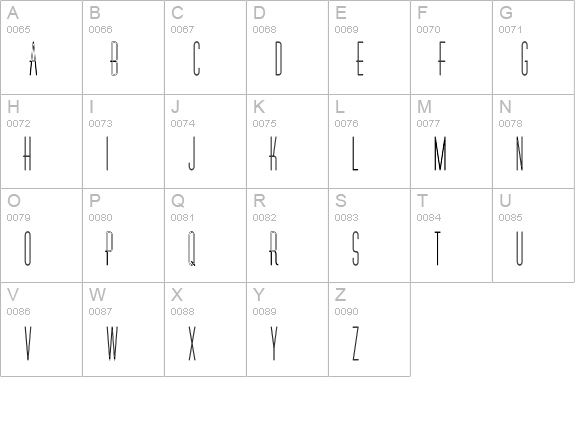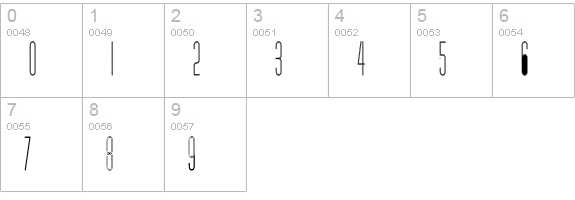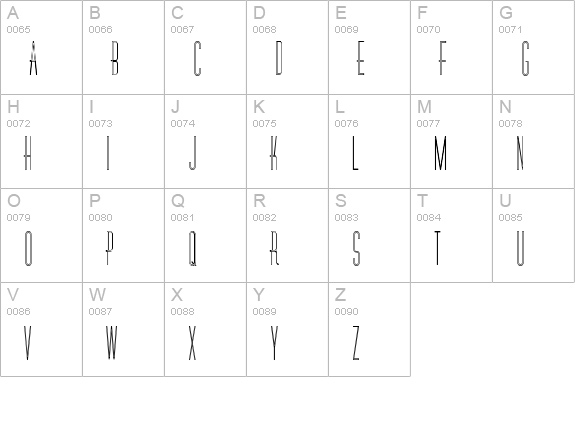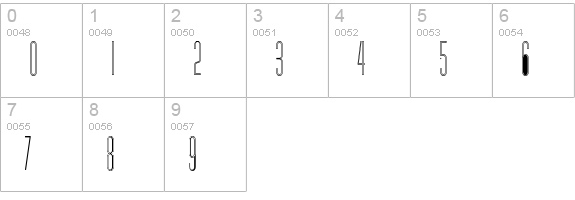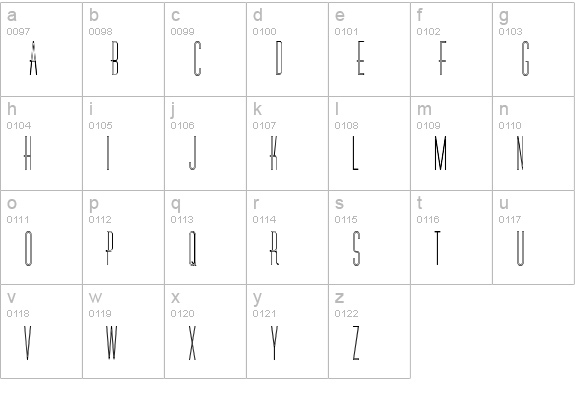
RhyOlverHC Font Details
RhyOlverHC font is the perfect blend of elegance and creativity, designed to add a touch of sophistication to any project. With its unique and stylish letterforms, this font is sure to make a lasting impression. But what sets RhyOlverHC apart from other fonts is not just its stunning design, but also the fact that it is available for free. Yes, you read that right - this extraordinary font can be downloaded at absolutely no cost from FontsMarket.com. Whether you're working on a logo, website design, or any other creative endeavor, RhyOlverHC font will elevate your work to new heights. Its smooth curves and sharp edges create a harmonious balance that is visually captivating. The versatility of RhyOlverHC font is another reason to love it. It effortlessly transitions from bold headlines to subtle body text, making it suitable for a wide range of projects. Whether you're aiming for a modern and sleek look or a classic and timeless feel, this font has got you covered. Not only is RhyOlverHC font visually stunning, but it is also incredibly easy to use. Its well-organized glyphs and extensive character set ensure that you have all the tools you need to bring your ideas to life. So why wait? Enhance your designs with the elegance and creativity of RhyOlverHC font. Download it for free today at FontsMarket.com and unlock a world of endless possibilities.